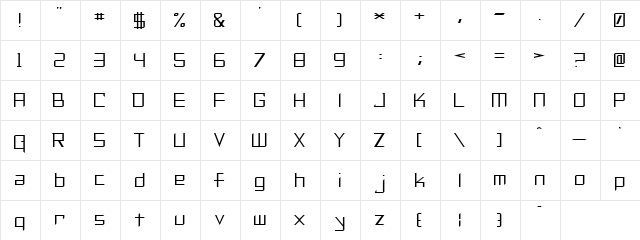
Maximal Beasts Regular
Design Context for Maximal Beasts Typeface
Maximal Beasts takes a measured approach to typography — its balanced proportions and neutral character make it a reliable workhorse for both digital and print work.